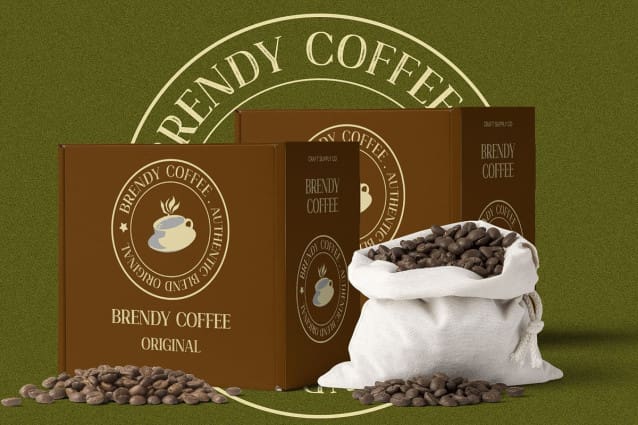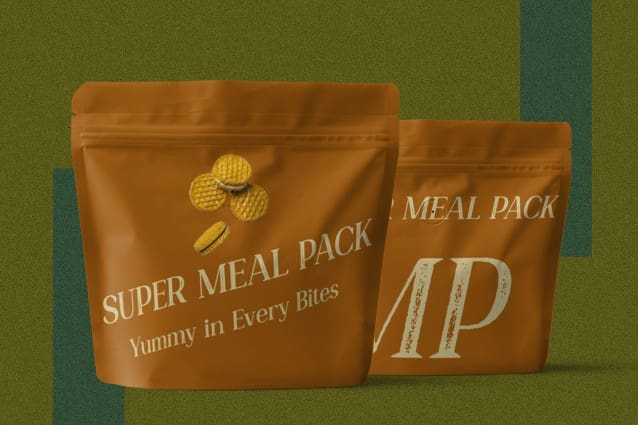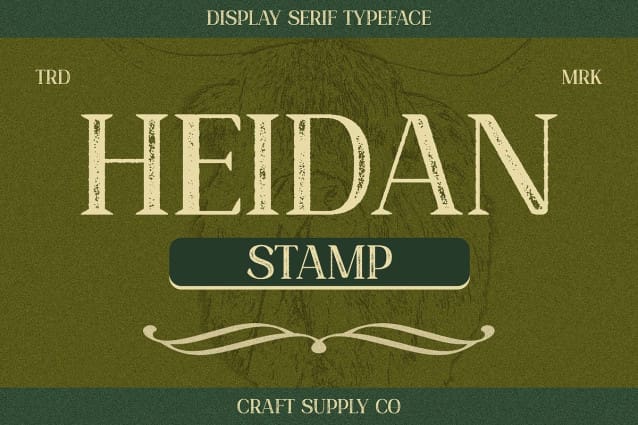
Heidan Stamp Font
Heidan Stamp Font: Striking High Contrast Serif. High Contrast Design Heidan Stamp boasts a high contrast serif design that captivates the eye with its bold strokes and sharp edges. Each character commands attention and exudes confidence.
Stamp Effect The font is adorned with a distinctive stamp effect, adding a touch of authenticity and uniqueness to its appearance. This effect gives This font a rugged yet refined aesthetic, perfect for making a statement.
Ideal for Display With its high contrast design and stamp effect, This font is tailor-made for display purposes. It shines in headlines, titles, and other prominent text elements, commanding the viewer’s attention with its bold presence.
Versatile Application Despite its bold appearance, This font is surprisingly versatile. It lends itself well to various design projects, from branding and packaging to posters and editorial layouts, adding a touch of drama and sophistication.
Bold and Authentic Serif Design This font combines high contrast serif design with a distinctive stamp effect, resulting in a font that demands attention and adds authenticity to any project. Whether used for bold headlines or subtle accents, Heidan Stamp makes a powerful statement with its striking appearance.